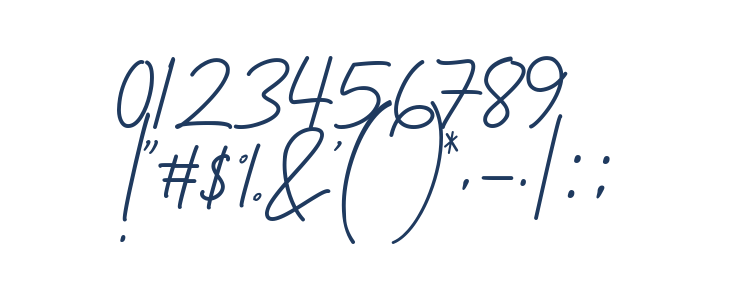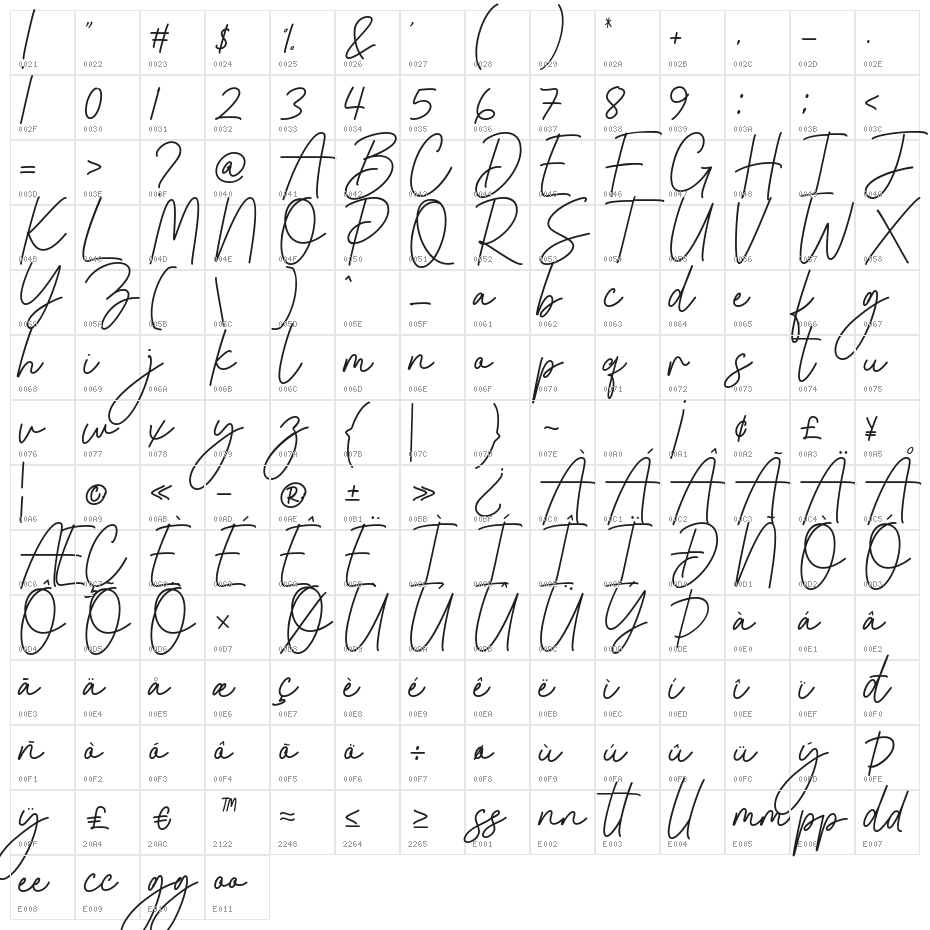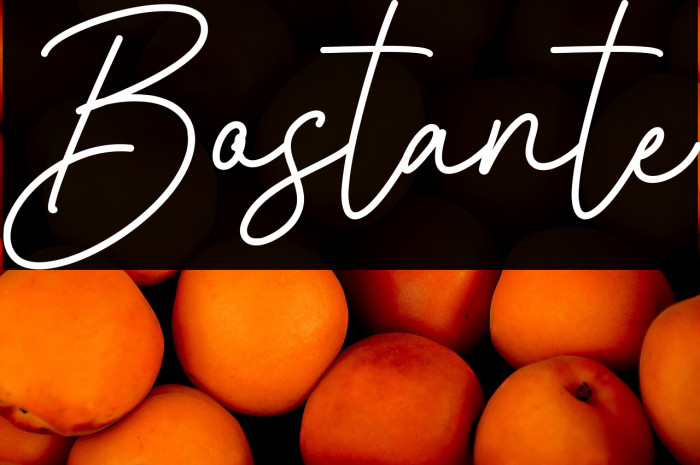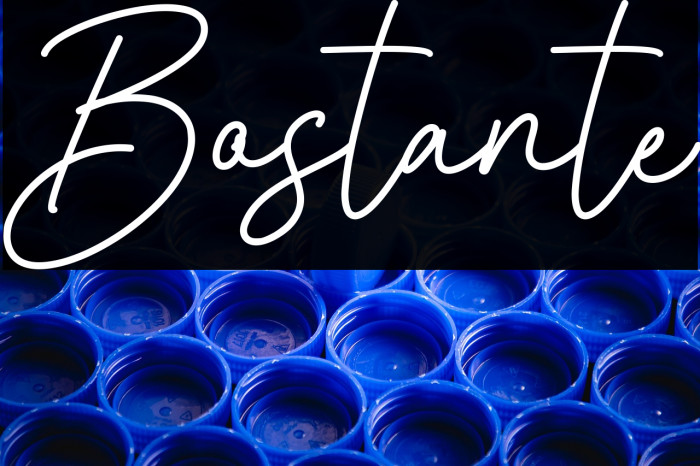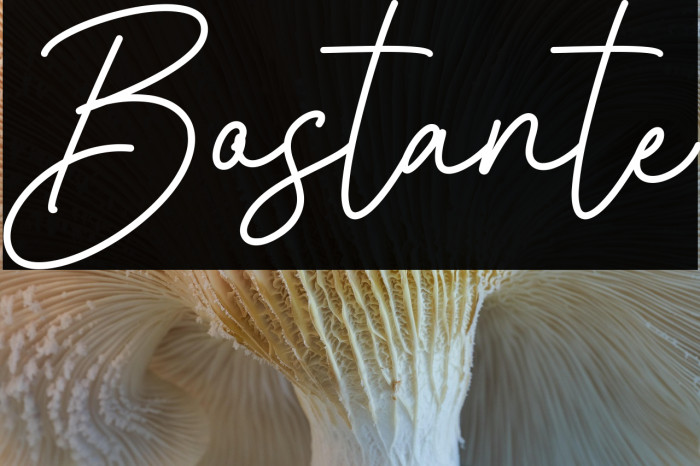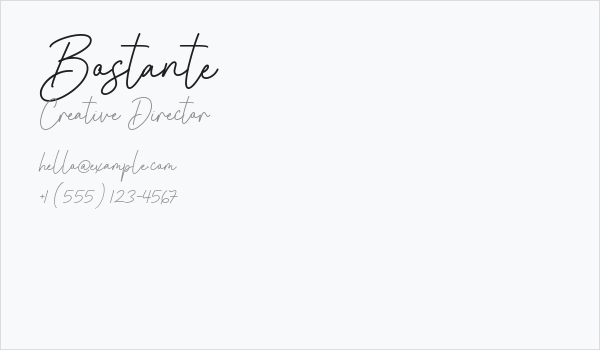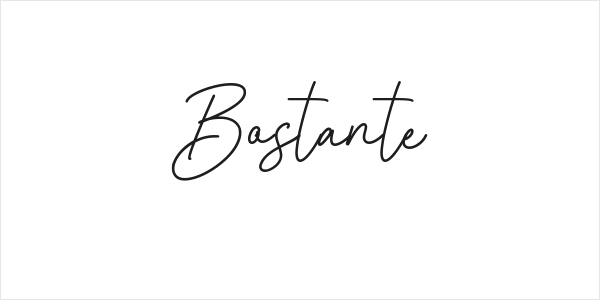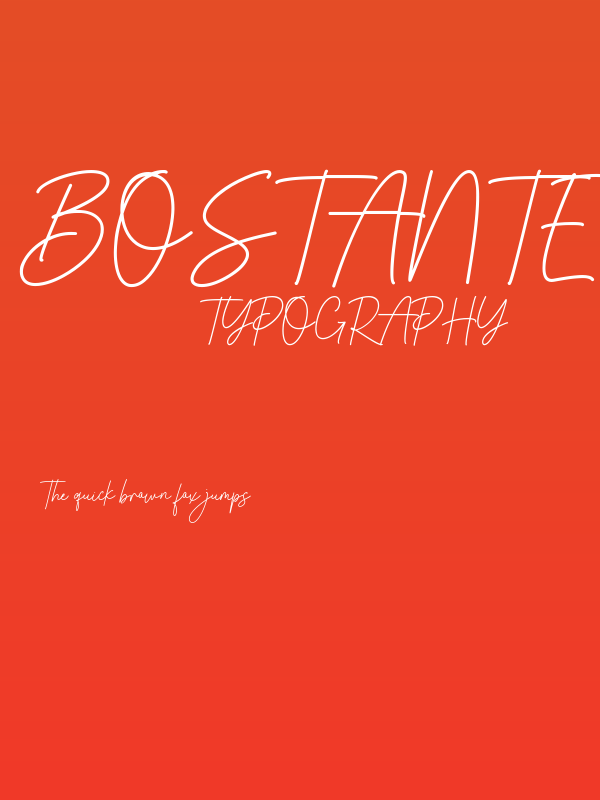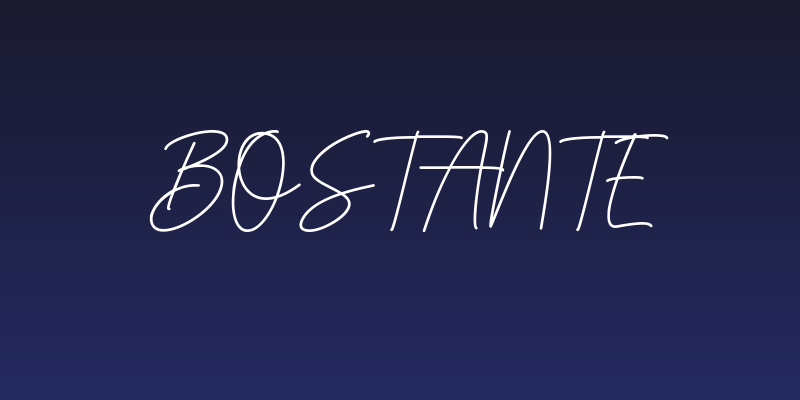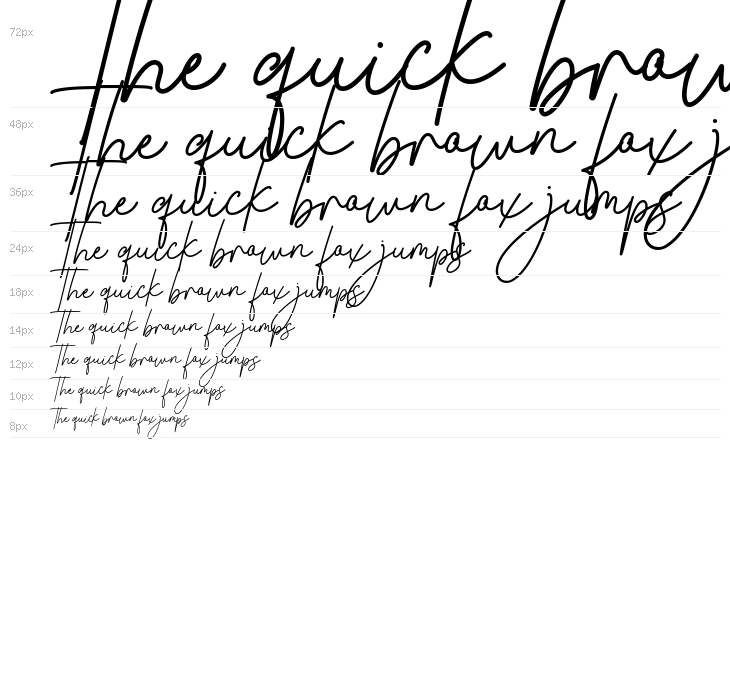
Bostante Font
Bostante Description
This font exudes a casual, handwritten style with a modern twist. The uppercase letters are elegantly elongated, giving a sense of fluidity and movement. The lowercase letters maintain a consistent flow, with some characters featuring unique loops and curves that add personality. The numerals are clear and legible, maintaining the handwritten aesthetic. Special characters are crafted with the same attention to detail, ensuring they blend seamlessly with the rest of the font. Overall, this font captures a sense of spontaneity and creativity, making it ideal for projects that require a personal touch.
| Use Case | Logos, Invitations, Artistic Posters |
| Proposed Projects | Ideal for personal branding, creative invitations, and artistic posters. |